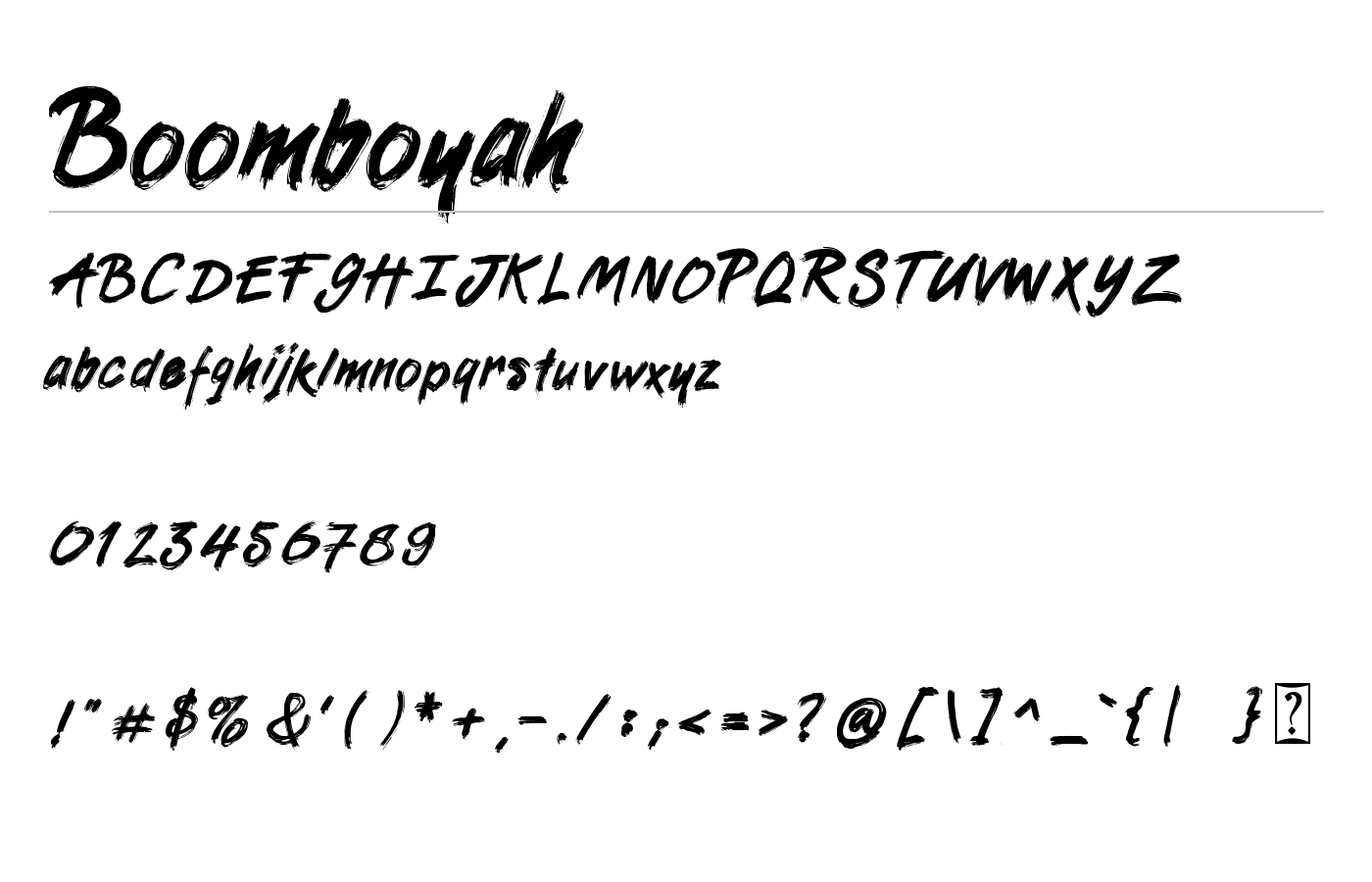
Boomboyah is a bold, brush-script font that exudes energy and a hand-painted feel with its strong, textured strokes and casual flow. Its dynamic, slightly condensed letterforms and high contrast between thick and thin brush marks make it ideal for grabbing attention in creative, edgy designs. Perfect for posters, branding, and headlines, Boomboyah brings a lively, artisanal vibe that works well for youthful and artistic projects.
Boomboyah Font
About Boomboyah Font
| Font family | Boomboyah Font |
| Designer | Letterara 2019 |